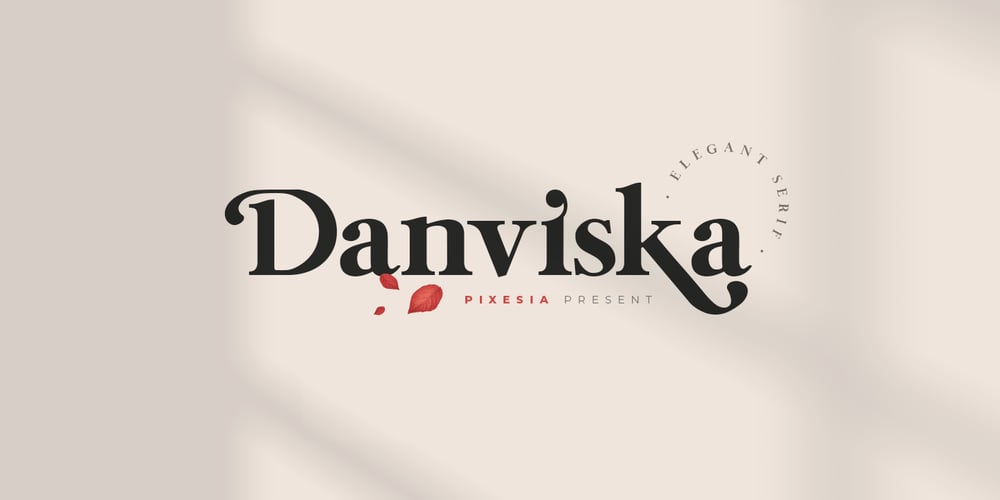
Danviska
Danviska font
Danviska Font Family was designed by Abul Almaududi and published by Pixesia Studio. Danviska contains 1 styles and family package options. Introducing Danviska – An Elegant Modern Serif FontDanviska is a stylish, thick lettered and imposing serif font. This font is PUA encoded which means you can access all of the glyphs and swashes with ease! This font is perfect for branding projects, Logo design, Clothing Branding, packaging, magazine headings, poster, advertising, T-shirts, postcards, wedding invitation and much more.Fall in love with its incredibly versatile style and use it to create spectacular designs!